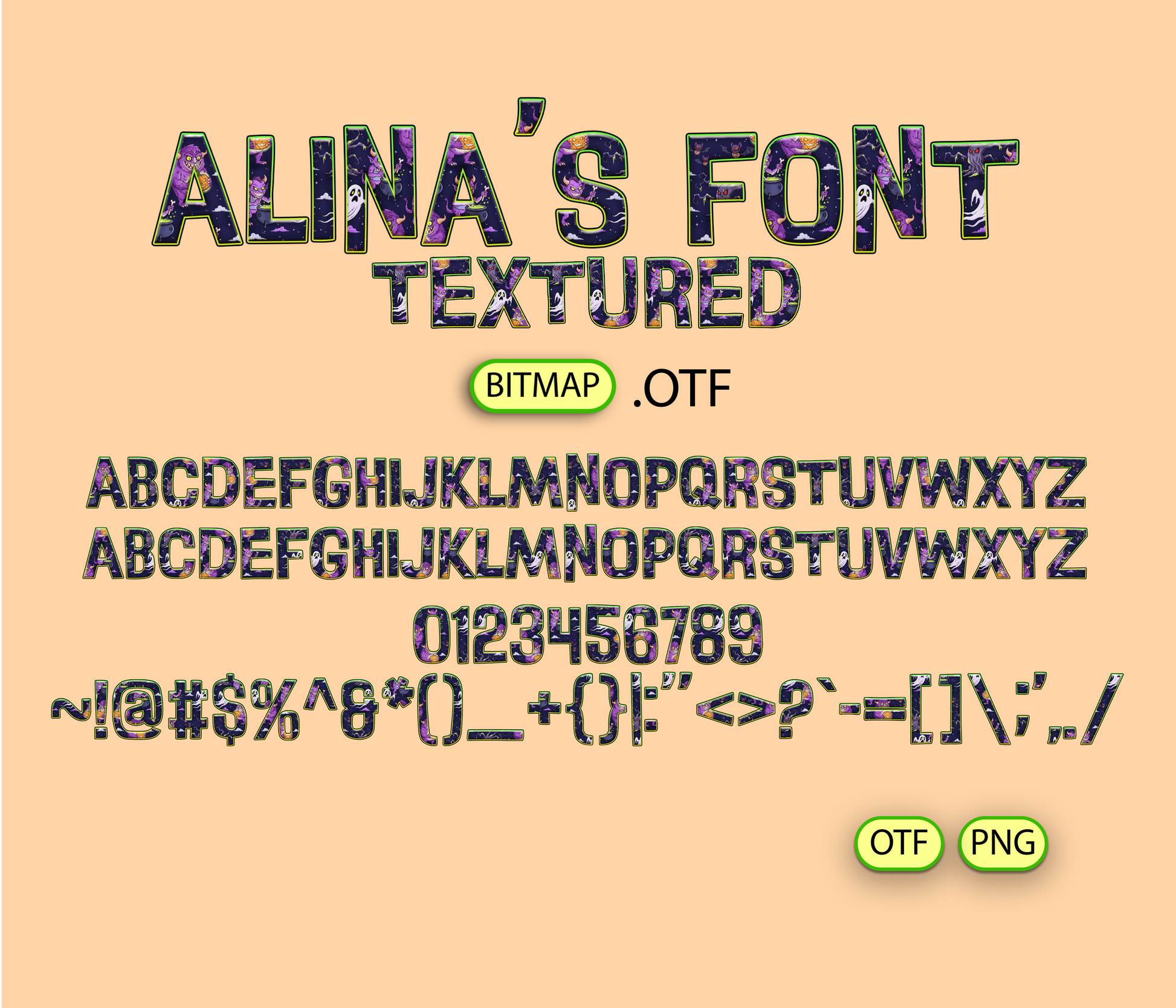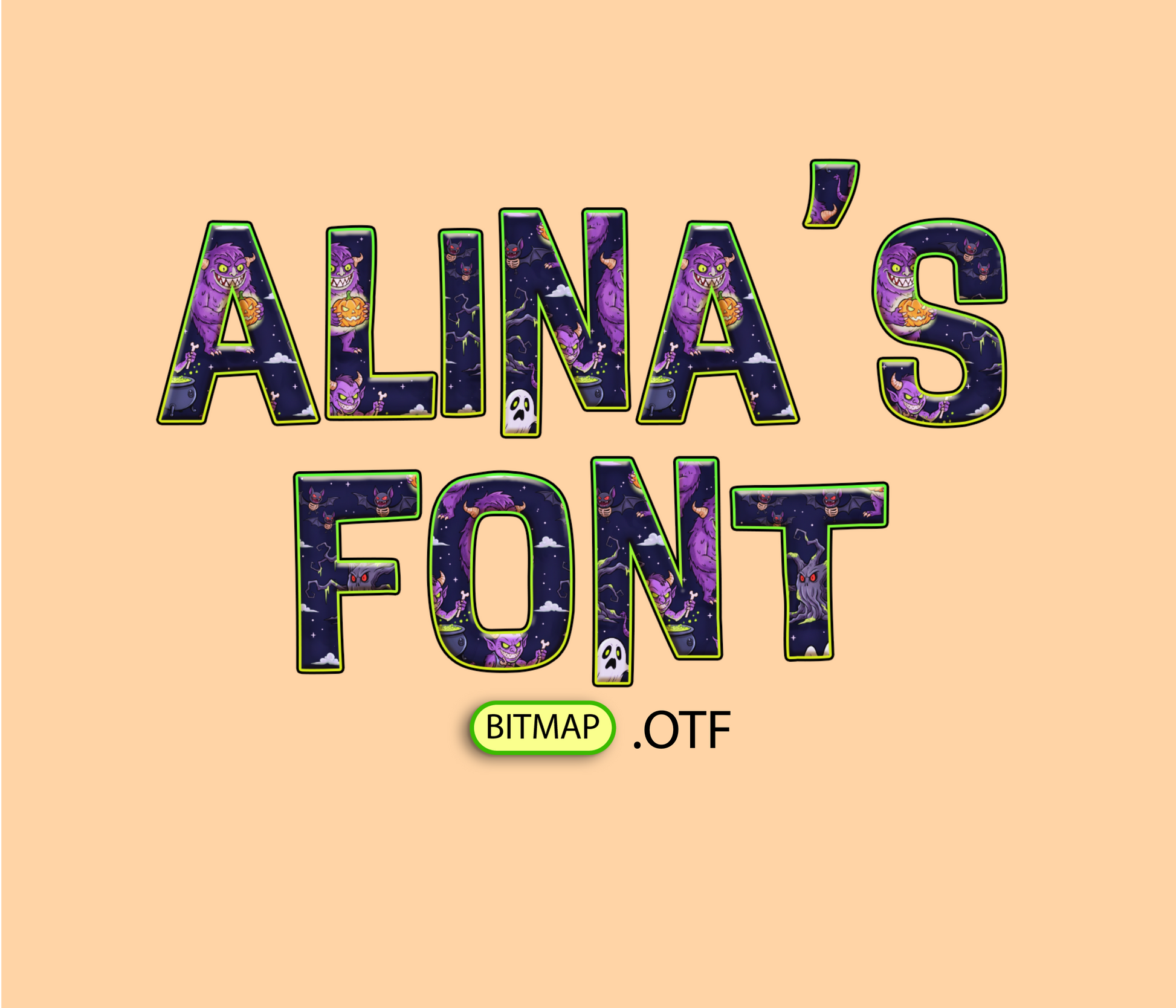
FREE Halloween Cute Monsters Pattern Font
Step into the adorable world of spooky creatures with our Halloween Cute Monsters font, capturing the essence of friendly ghouls and playful frights. Perfect for Halloween fans, party planners, event organizers, and designers, this font brings the charming, whimsical spirit of lovable monsters to your projects. Create delightful materials, merchandise, or digital content with the fun energy of cute spooky celebrations.
Our Halloween Cute Monsters font features playful, bouncy lines and friendly characters reflecting the world of adorable frights. Ideal for:
- Event Promotions: Create charming invites, posters, and banners for Halloween parties, trick-or-treat events, and costume celebrations that capture the spirit of cute spookiness
- Merchandise Design: Perfect for t-shirts, posters, and accessories that showcase the delightful aesthetic of friendly monsters and playful ghouls
- Digital Media: Enhance websites, blogs, and social media with whimsical headers and graphics that express the fun of adorable Halloween creatures
- Seasonal Content: Add authentic flair to party decorations, costume projects, and creative designs inspired by cute monster tales
- Personal Projects: Bring playful excitement to scrapbooking, DIY crafts, and home decor inspired by the world of friendly frights
Our font pays tribute to the iconic world of adorable spooky creatures, empowering your designs with its charming and playful spirit. Whether crafting promotional materials, designing merchandise, or adding a whimsical touch to personal projects, this font communicates the delightful essence of cute Halloween monsters. Ready to inject friendly fright into your creations? This font is your key to exciting, impactful design.